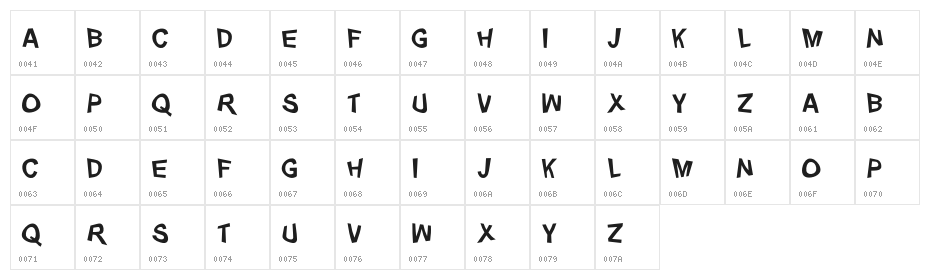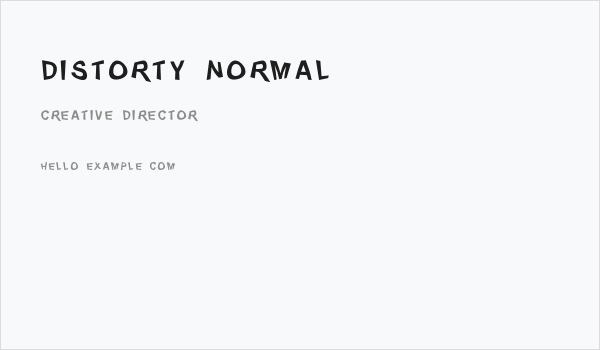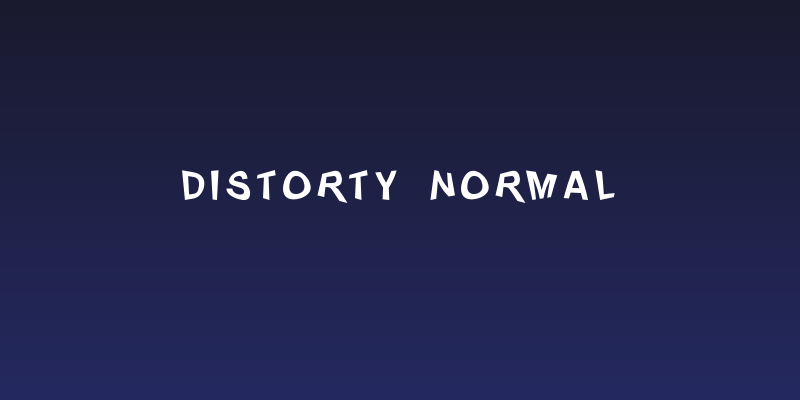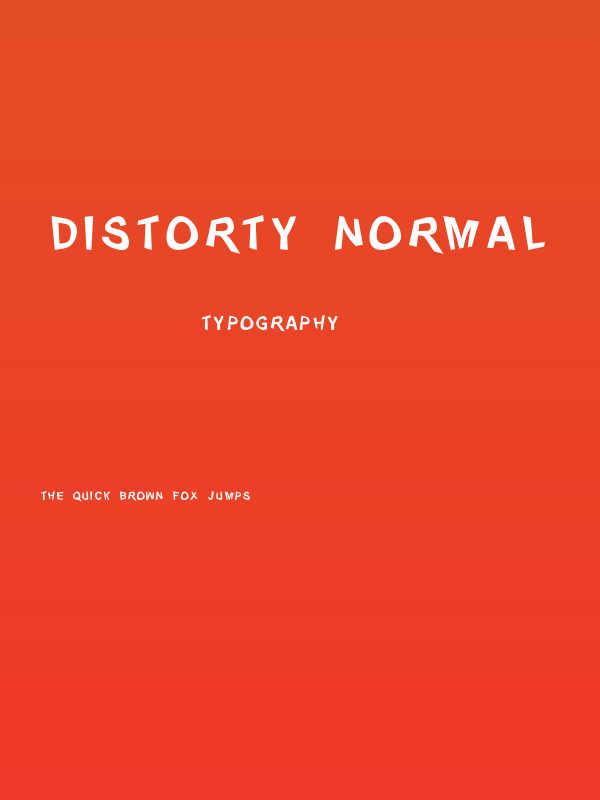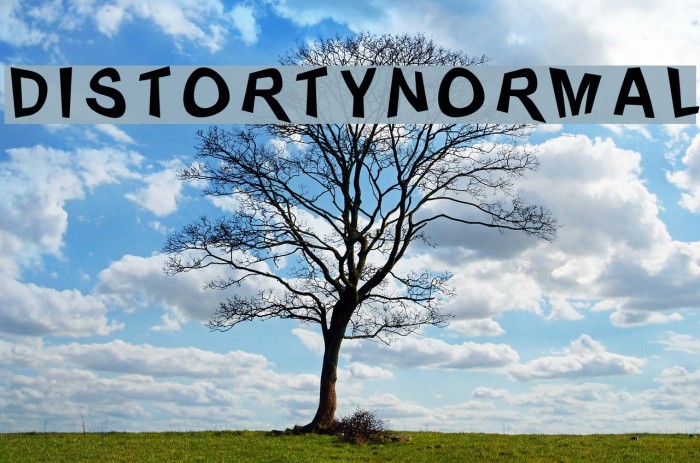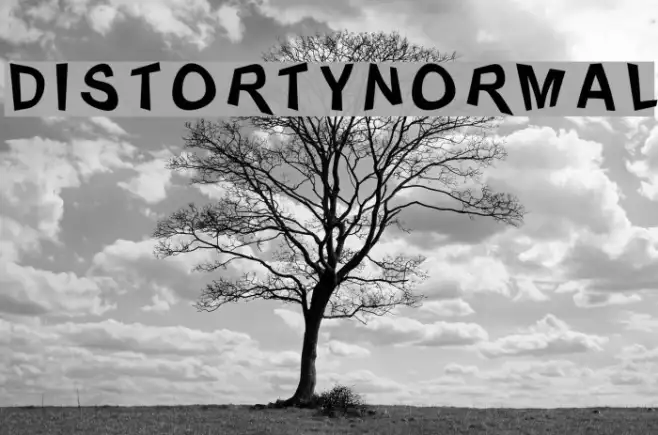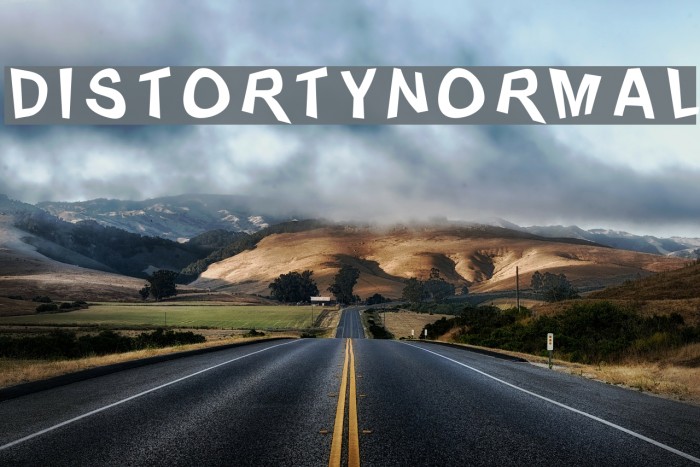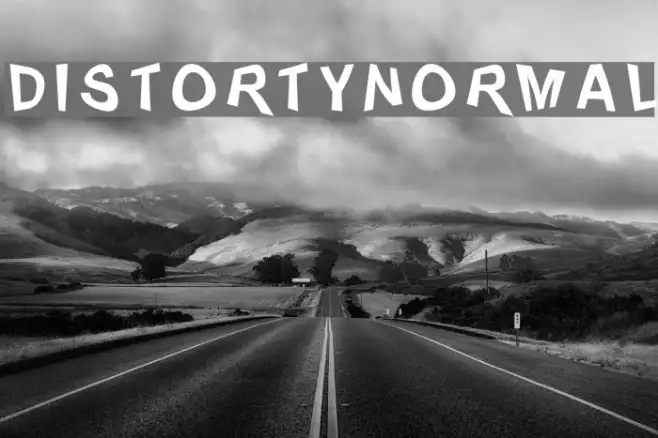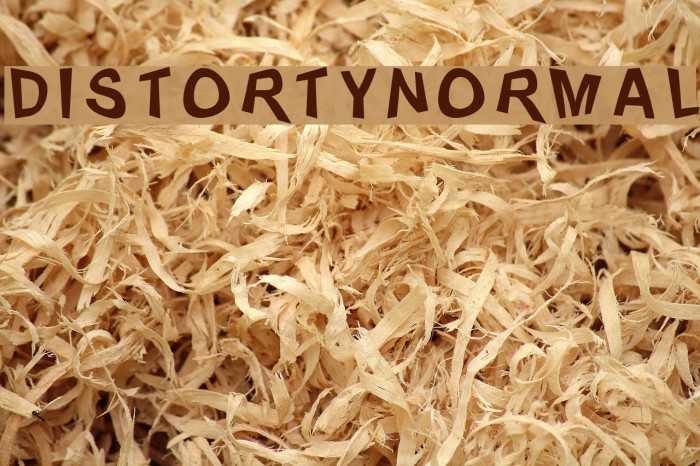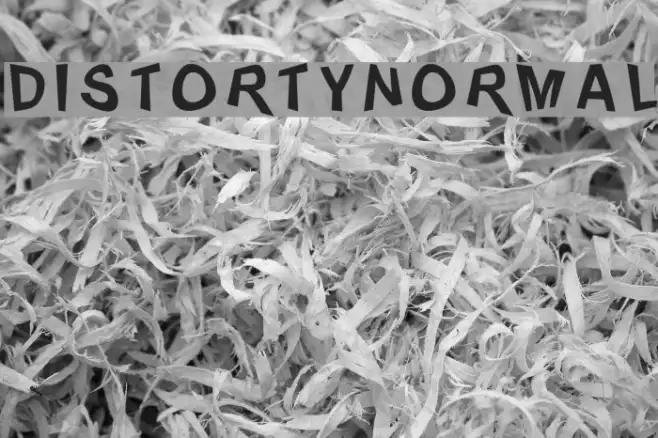
Distorty-Normal Font
Distorty-Normal Description
This font features a playful and quirky design with each character exhibiting a slightly distorted and irregular form. The letters are bold and have a hand-drawn appearance, giving them a unique and whimsical style. The uppercase letters maintain a consistent height, while the lowercase letters mirror this playful distortion, creating a cohesive yet dynamic look. The font's boldness ensures readability, while its irregularities add a touch of fun and creativity. It's perfect for projects that require a casual and informal tone, such as children's books, playful branding, or creative posters.
| Overall Style | Whimsical, Playful |
| Proposed Projects | Ideal for children's books, playful branding, creative posters, and informal designs. |